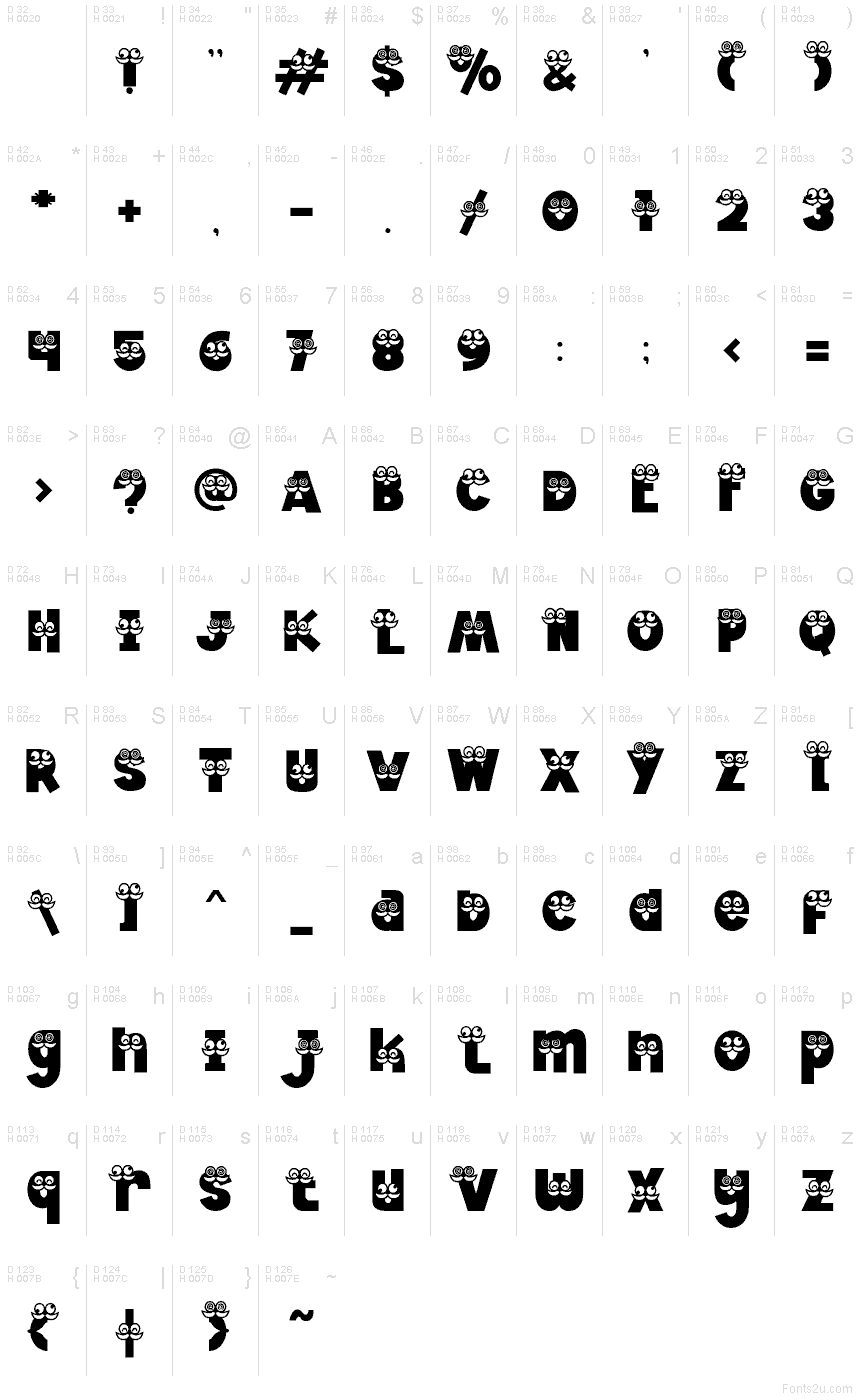
Jester Jumble Funny font by PutraCetol Studio is a free novelty display font that's charmingly decorative in a cartoon style. Inspired by the playful graphic styles from the mid-20th century, it has humorous and engaging characters built with bold shapes and whimsical elements.
Its typical contemporary applications include children's books, party invitations, playful branding, posters, social media posts, book covers, game interfaces, apps design, creative writing logos, marketing materials for kids' products.